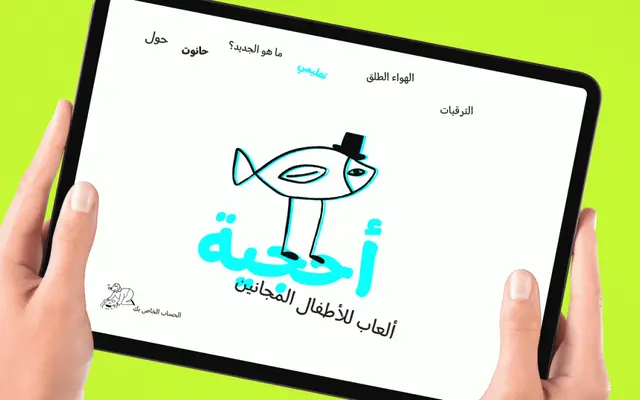
A handwriting-inspired informal family spanning Latin, Arabic, Cyrillic and Greek, designed with children's reading in mind and a wide range of contextual alternates to emulate the natural variability of written letterforms.
Built around the spontaneous movement of the pen, Nawin uses contextual alternates to introduce subtle variation between repeated letterforms, counteracting the mechanical regularity of digital type. In Arabic, vertical proportion shifts between letters such as Alef and initial Lam create rhythm in running text, while Latin, Greek and Cyrillic achieve similar liveliness through alternate character sets including diacritic variants. The result balances quirk and legibility across five weights, sold separately by script or in combined packs. The family won an ED Award in 2023.
Nawin is explicitly described as an informal typeface inspired by handwriting, with letter shapes emulating pen movement to express spontaneity. It sits firmly in the script/informal category despite its multi-script breadth and text-reading intent.